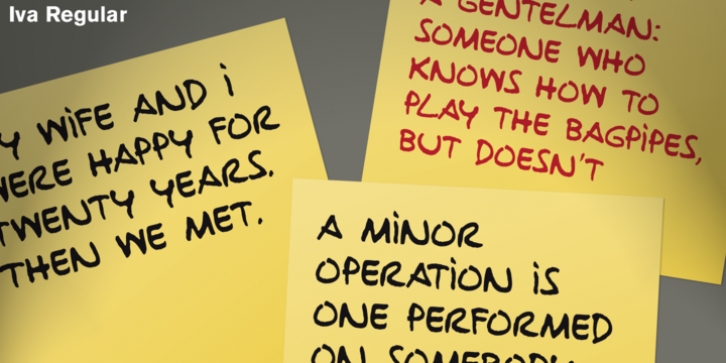
Iva downloadDesigner: Joan Barjau
Publisher: Type-Ø-Tones
Ivà by Joan Barjau / OpenType, 2 styles.   Ivà, a very personal script based on the handwriting of the cartoonist called Ramón Tosas "Ivà, digitised by Joan Barjau in two plain weights. These fonts were set for the credit titles of a film in 1994 and remain in our collection as an icon of those times.